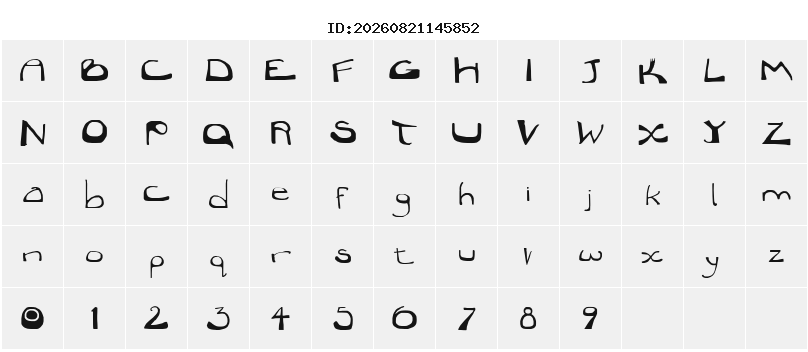
Scurville Preview
• Font Name: Scurville
• Full Font Name: Scurville
• PostScript Name: Scurville
• Character Count: 74
• Designer: Owen Turley
About Scurville.ttf
Scurville.ttf is a modern, elegant sans-serif font designed for ultimate readability and visual harmony. Perfect for branding, headlines, web design, and print materials.